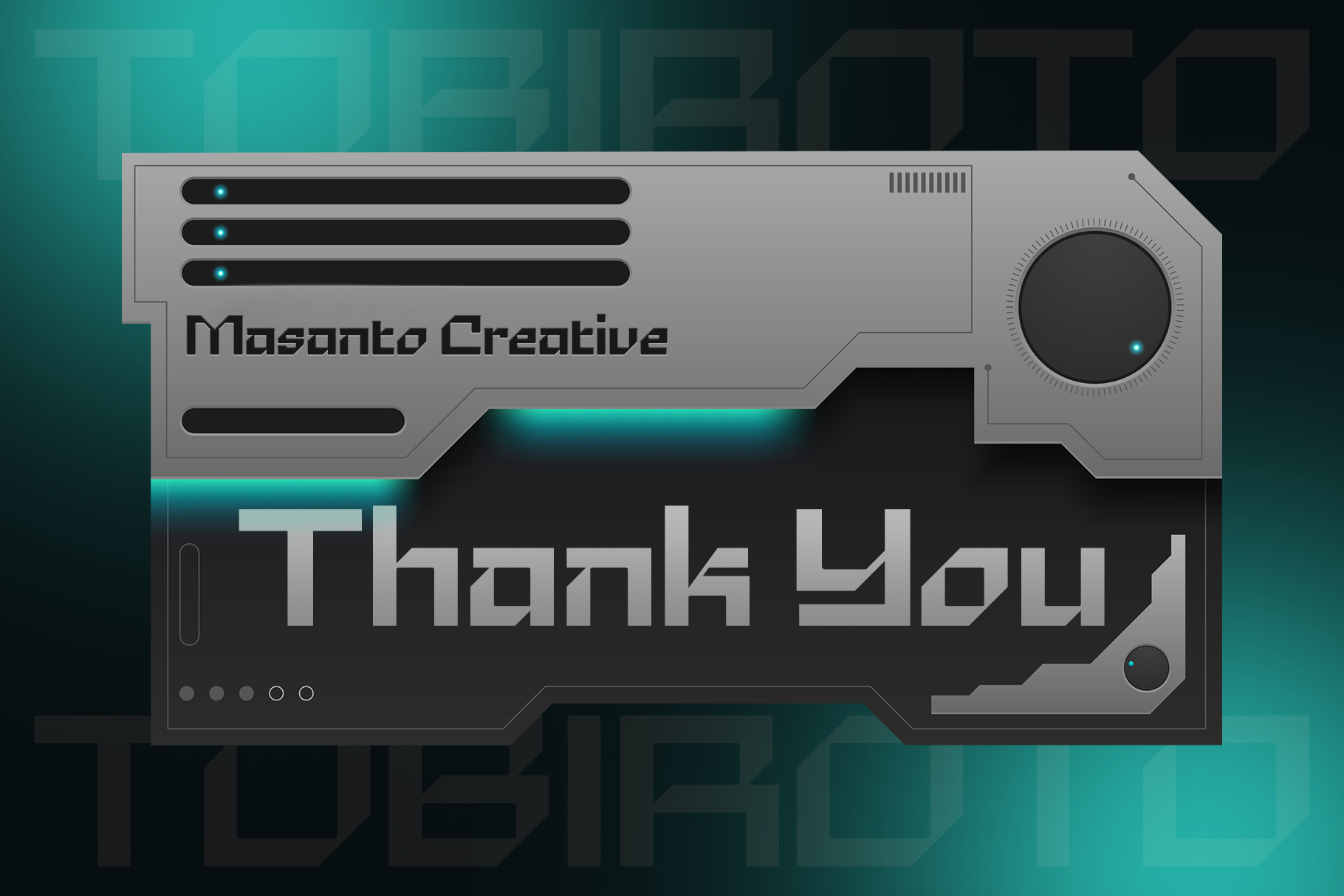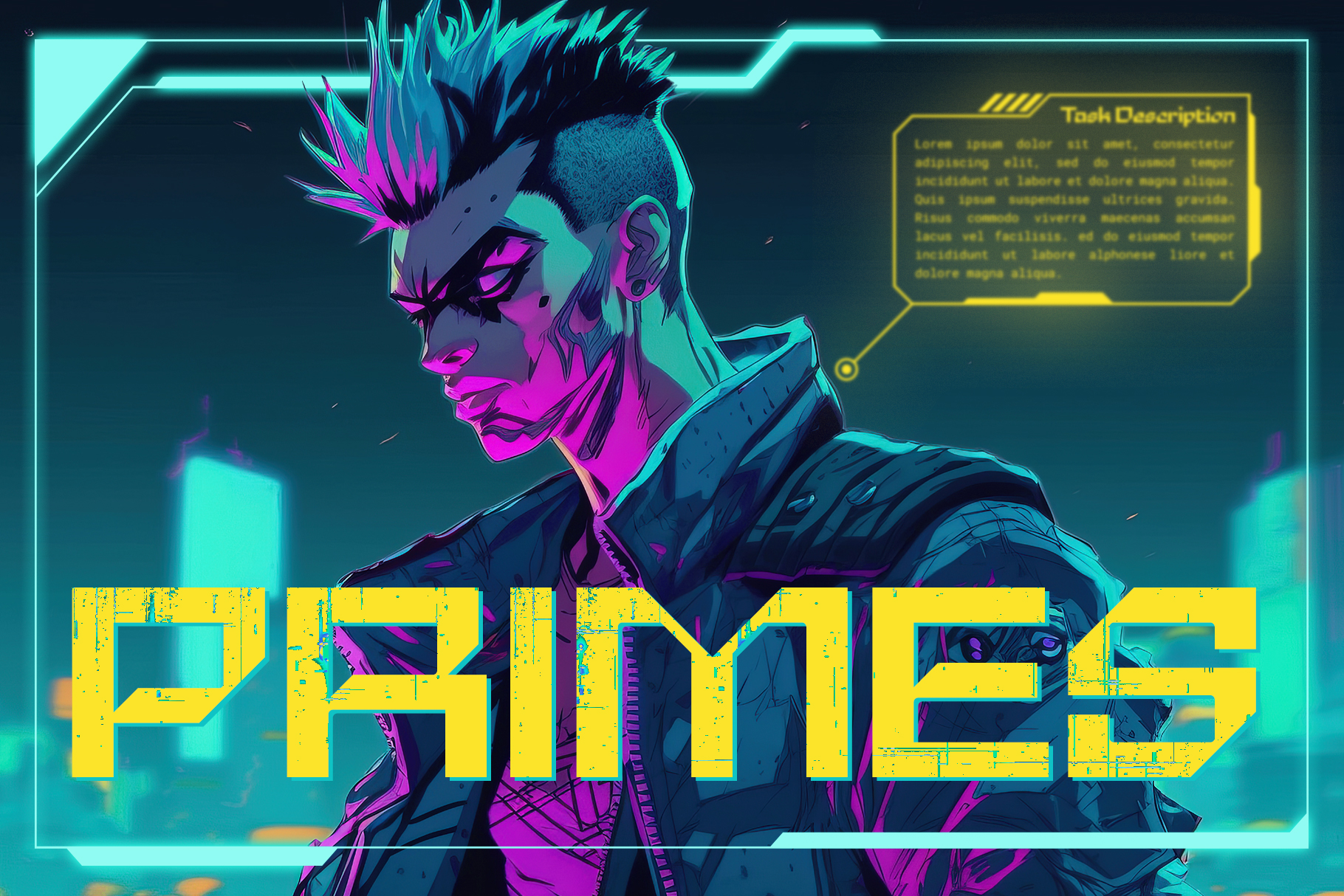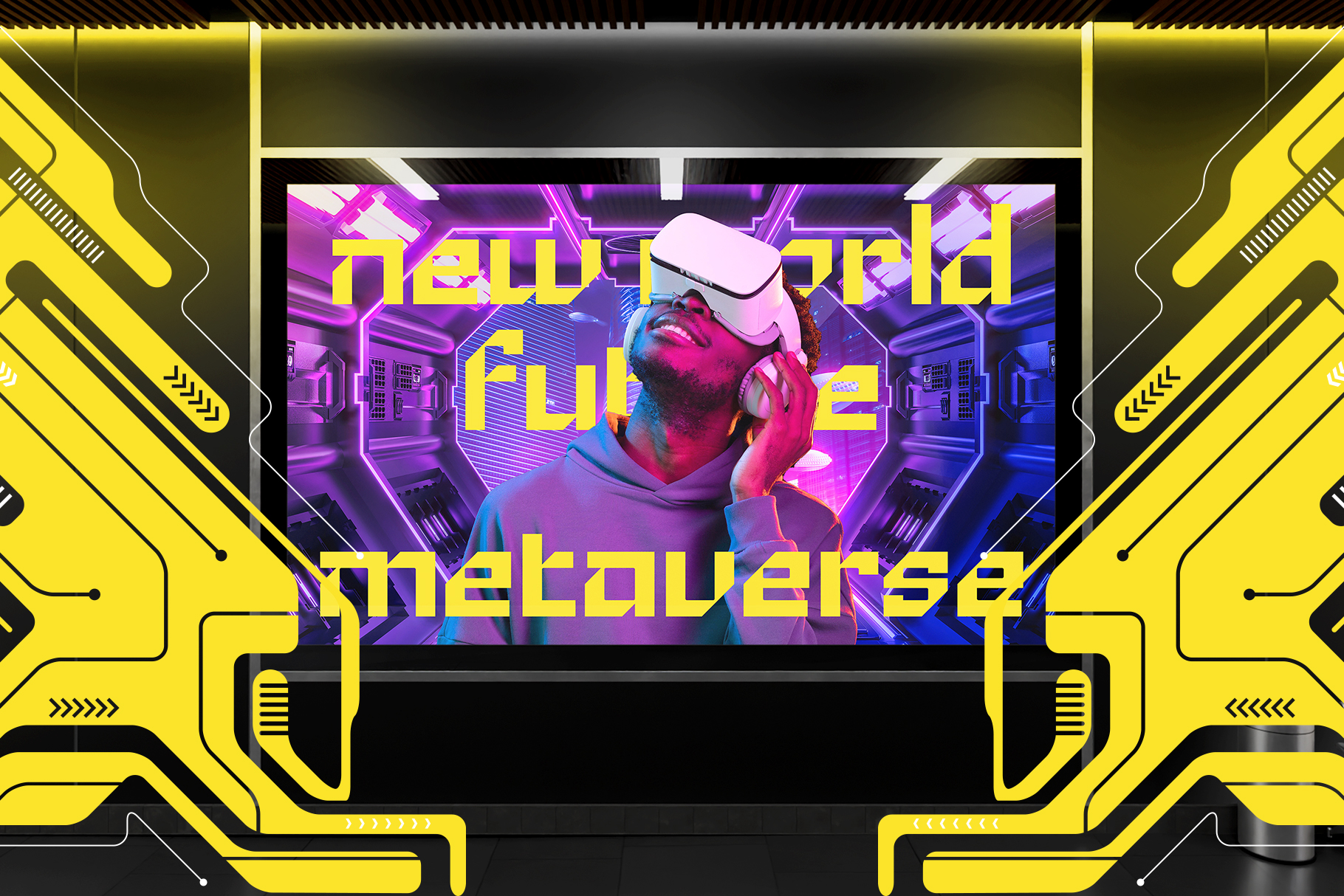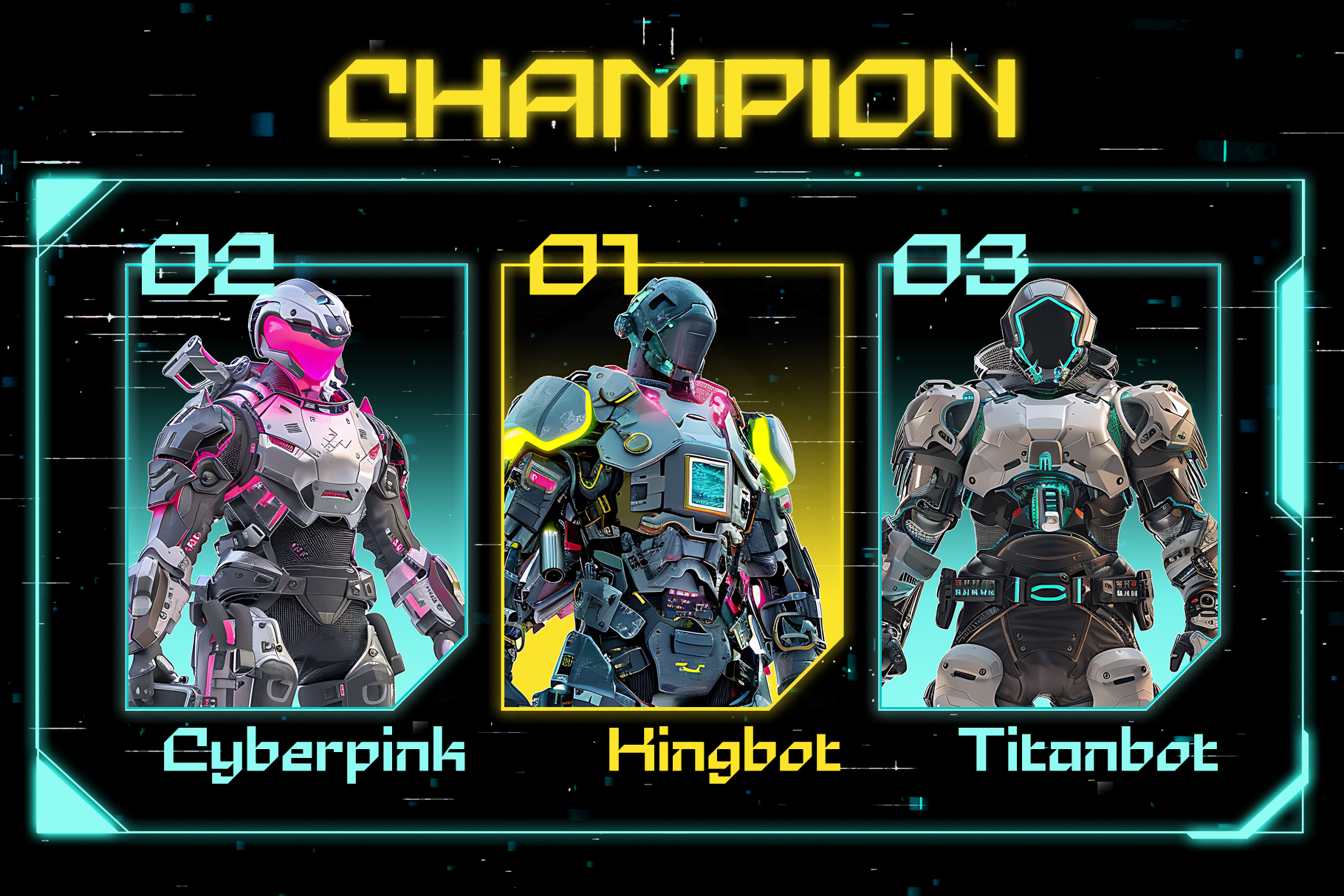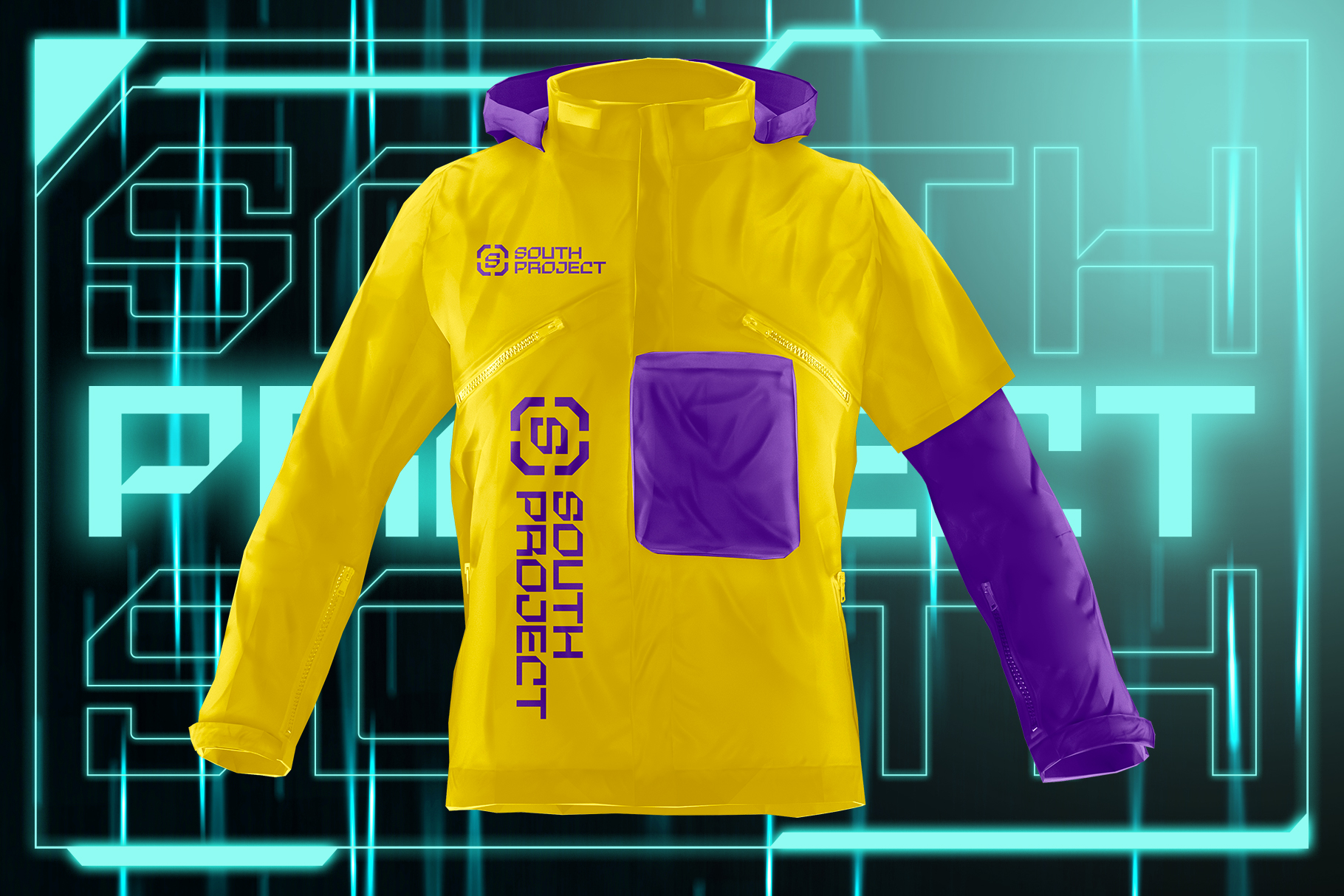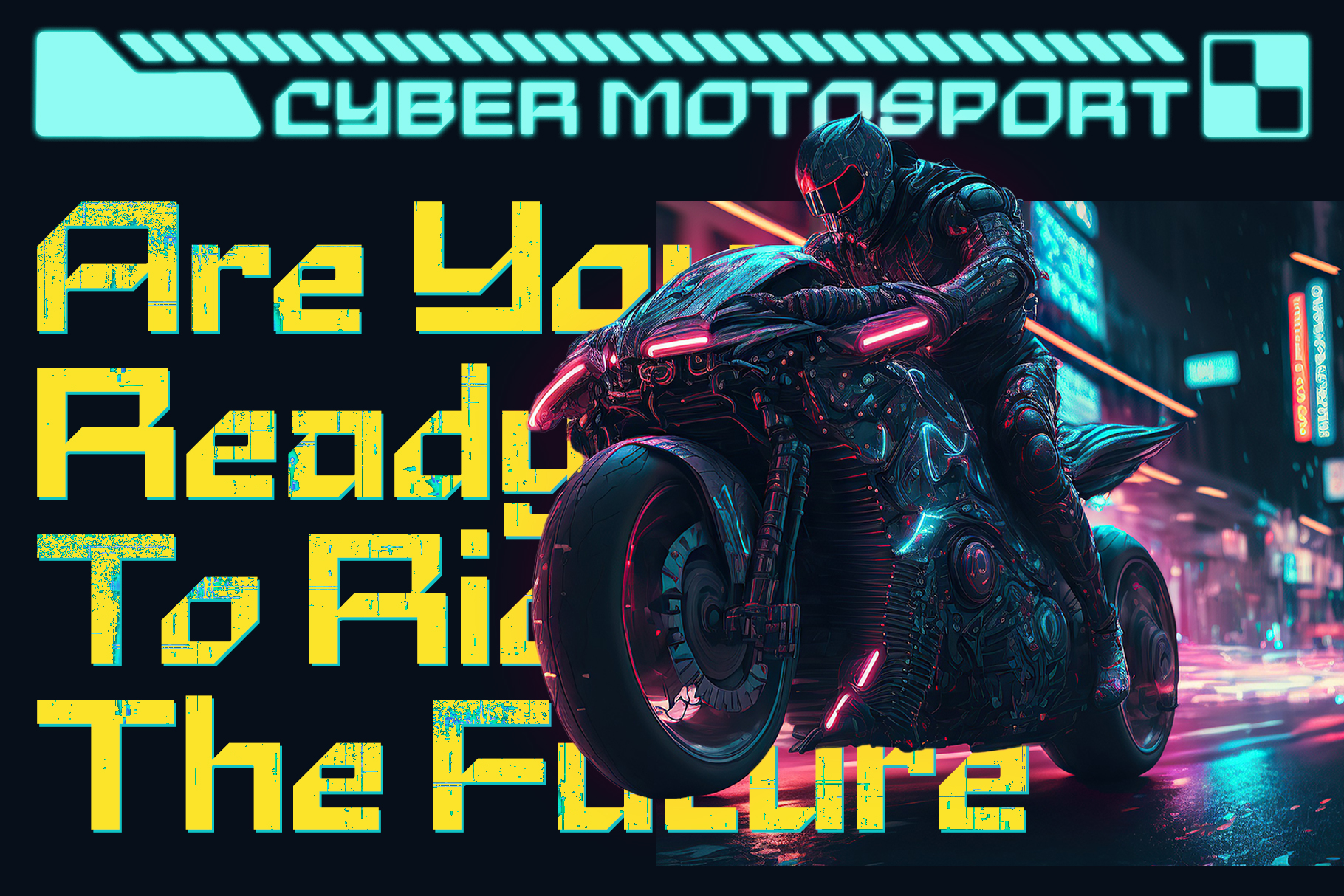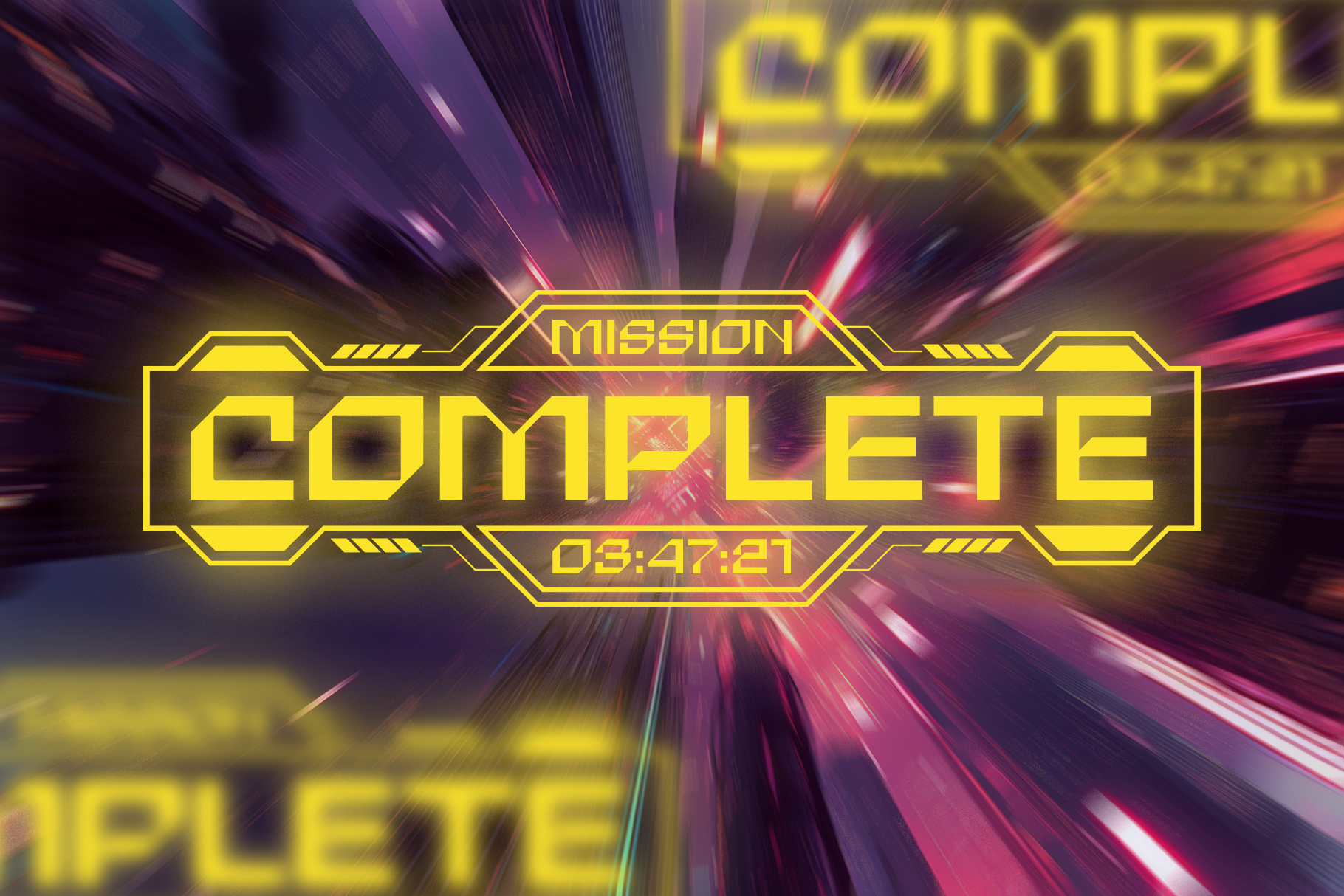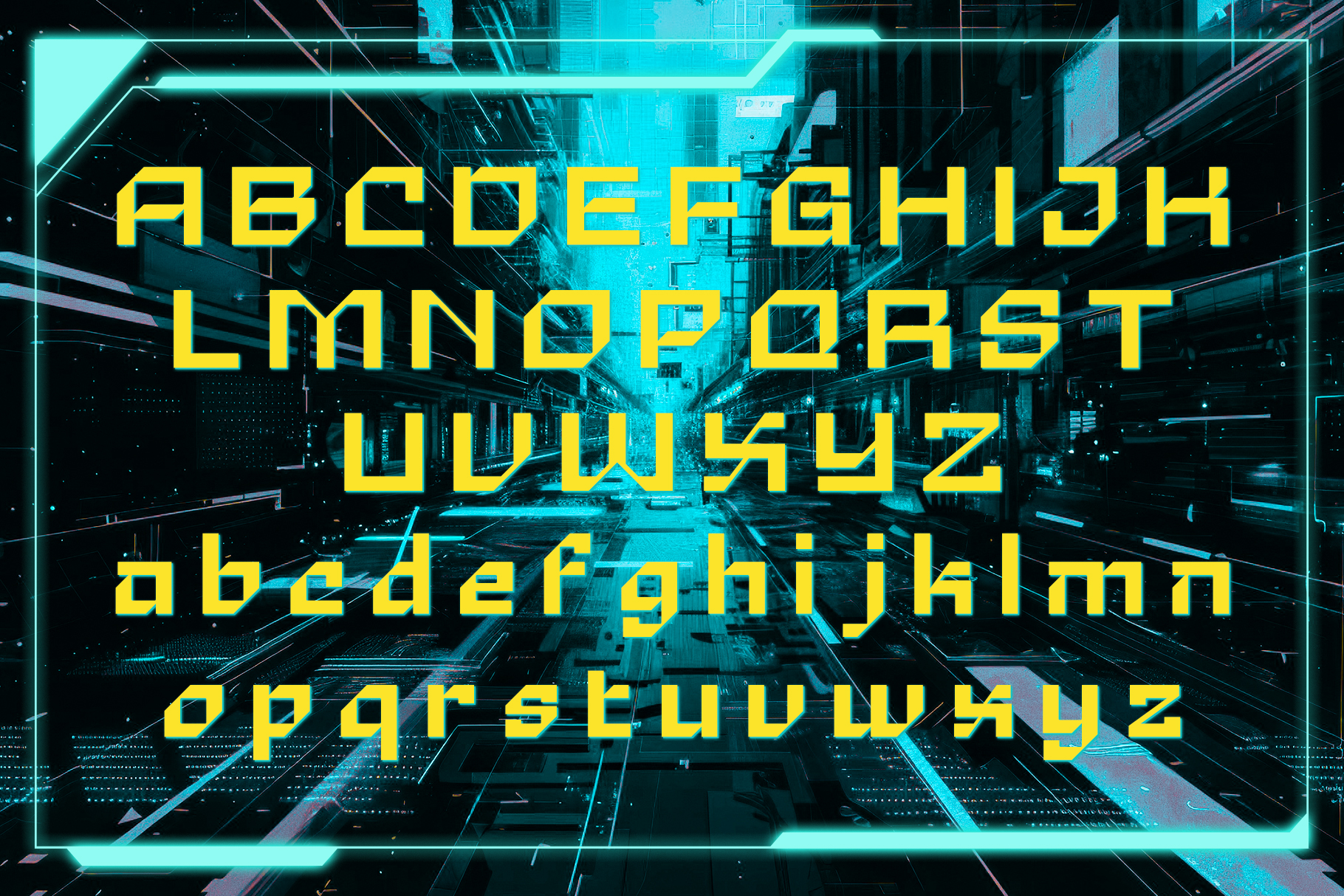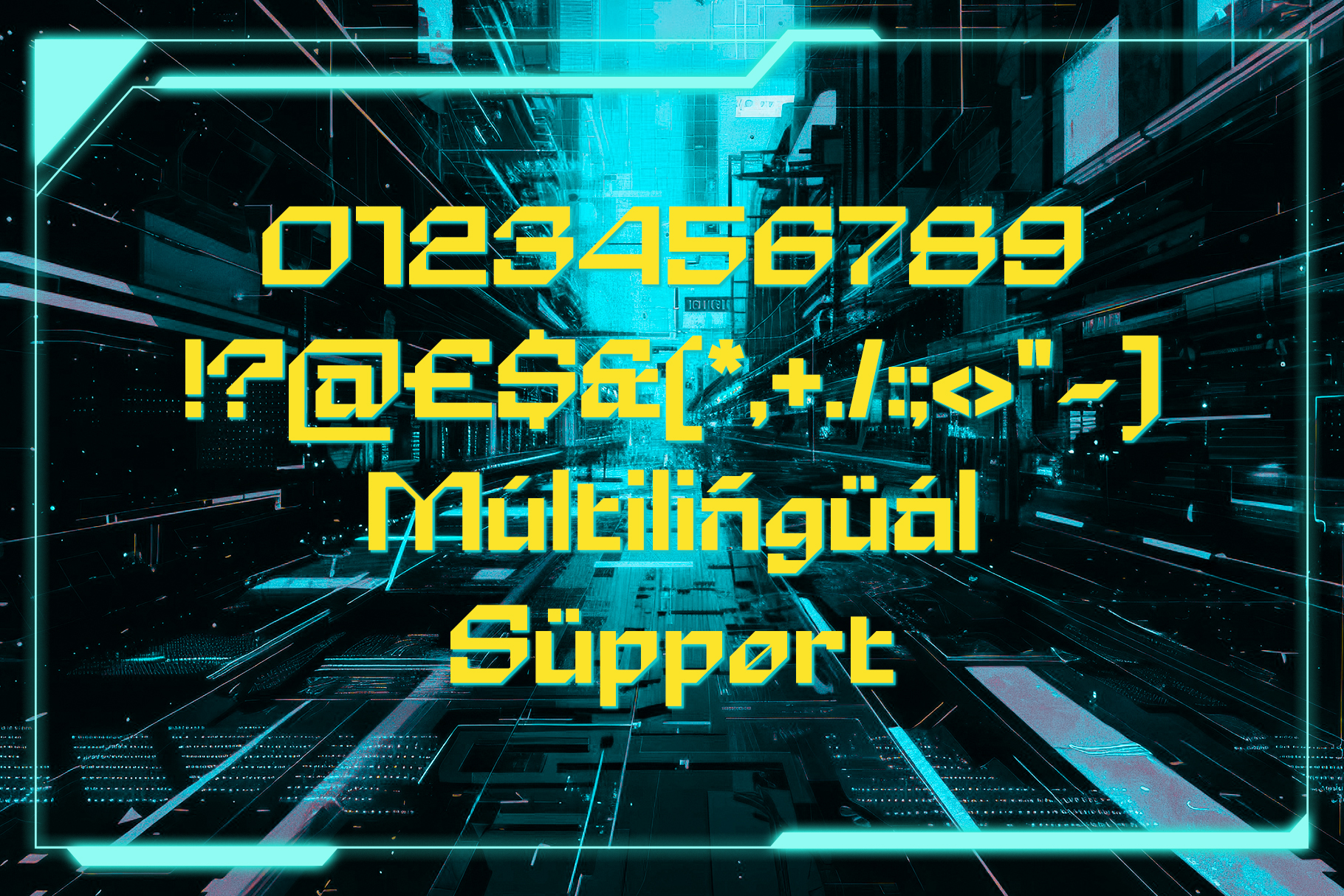
Tobiroto – Futuristic Font
About Tobiroto - Futuristic Font
Font "Tobiroto" presents a bold and futuristic aesthetic, merging sharp geometric shapes with modern minimalism. It is designed for maximum visual impact, making it an ideal choice for technology-focused projects, sci-fi themes, or anything requiring a sleek, futuristic vibe.
Its clear and defined characters feature a mix of both uppercase and lowercase options, along with numerals, punctuation, and multilingual support. The striking yellow font color contrasts against dark, neon-lit backgrounds, reinforcing a high-tech, cyberpunk atmosphere. Perfect for digital interfaces, branding, posters, and more, "Tobiroto" speaks to a forward-thinking, innovative future.
• Multingual suport